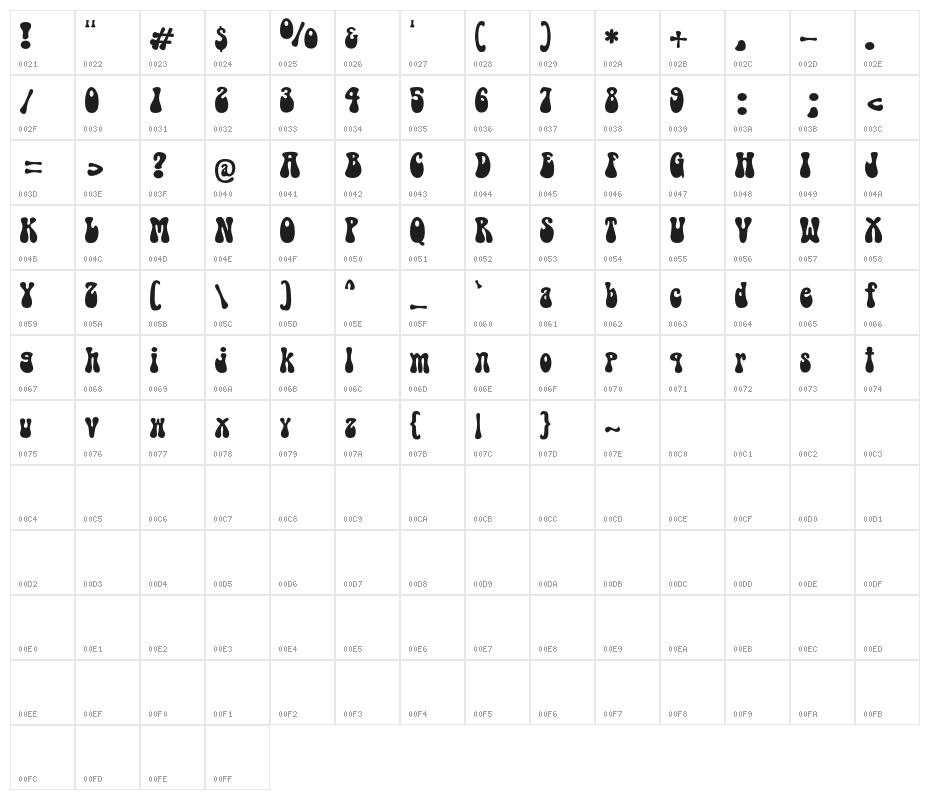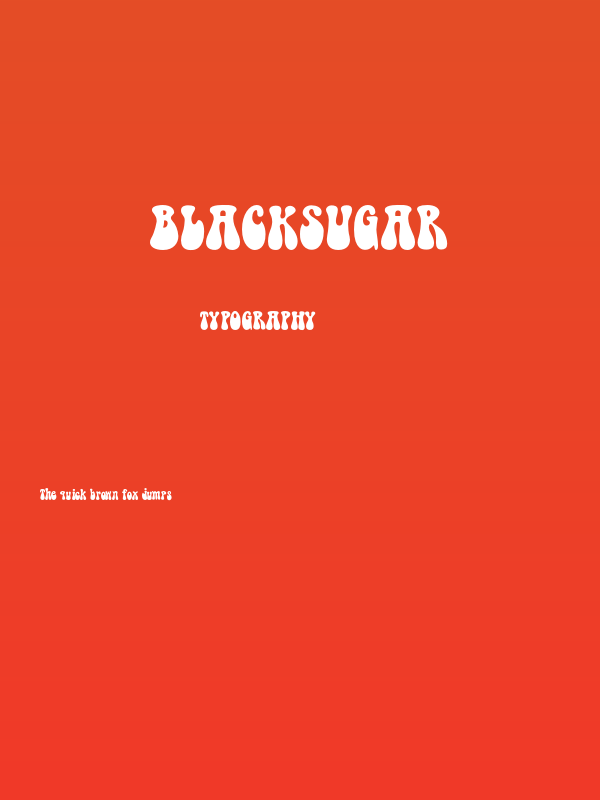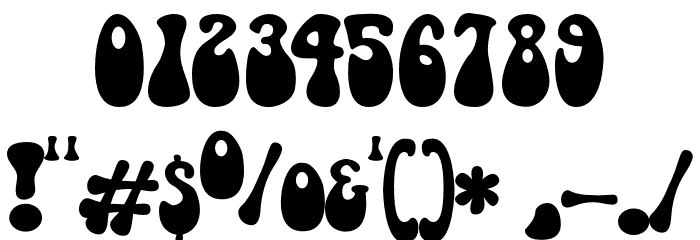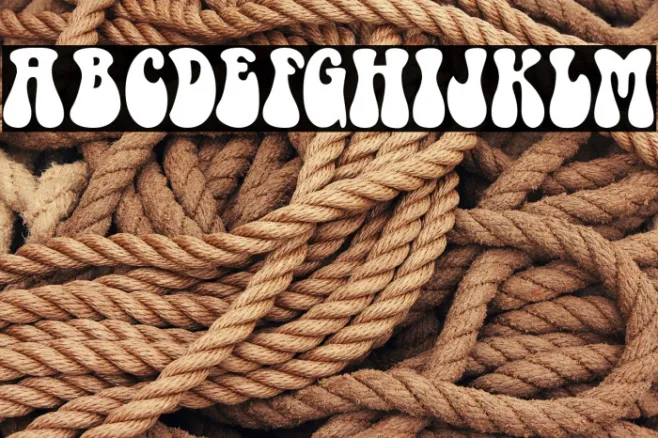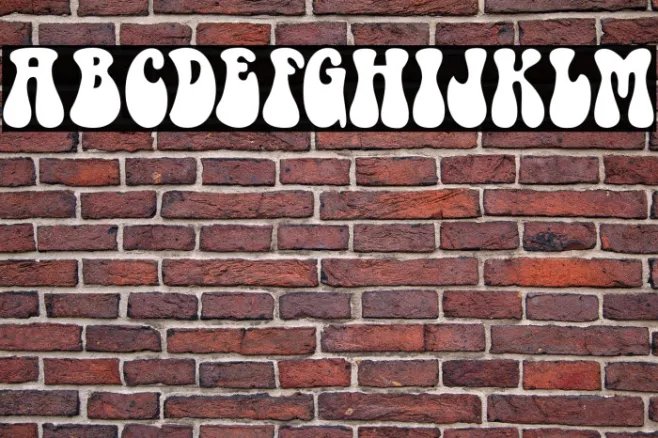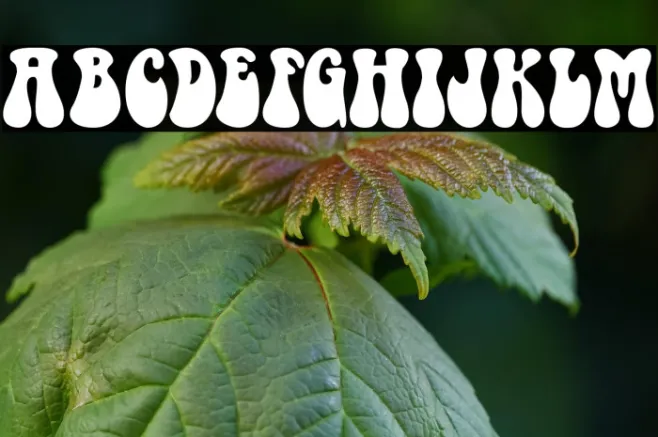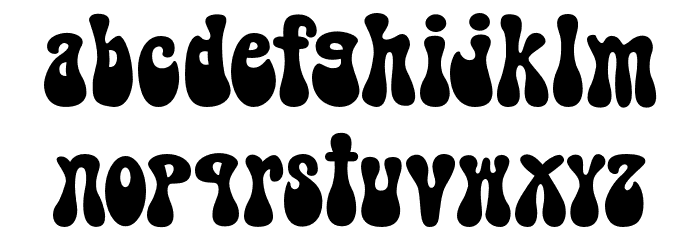
BlackSugar Font
BlackSugar Description
This font is a bold and playful typeface characterized by its thick, rounded forms and whimsical style. The letters have a bubbly appearance, with exaggerated curves and a sense of fluidity that gives them a lively and dynamic feel. The uppercase and lowercase letters maintain a consistent style, with the numbers and special characters following suit. This font exudes a sense of fun and creativity, making it ideal for projects that aim to capture attention and convey a sense of joy and spontaneity. Its unique design elements make it stand out, offering a distinctive look that is both modern and retro.
| Overall Style | Playful, Retro |
| Proposed Projects | Ideal for children's books, playful branding, event posters, and creative packaging. |